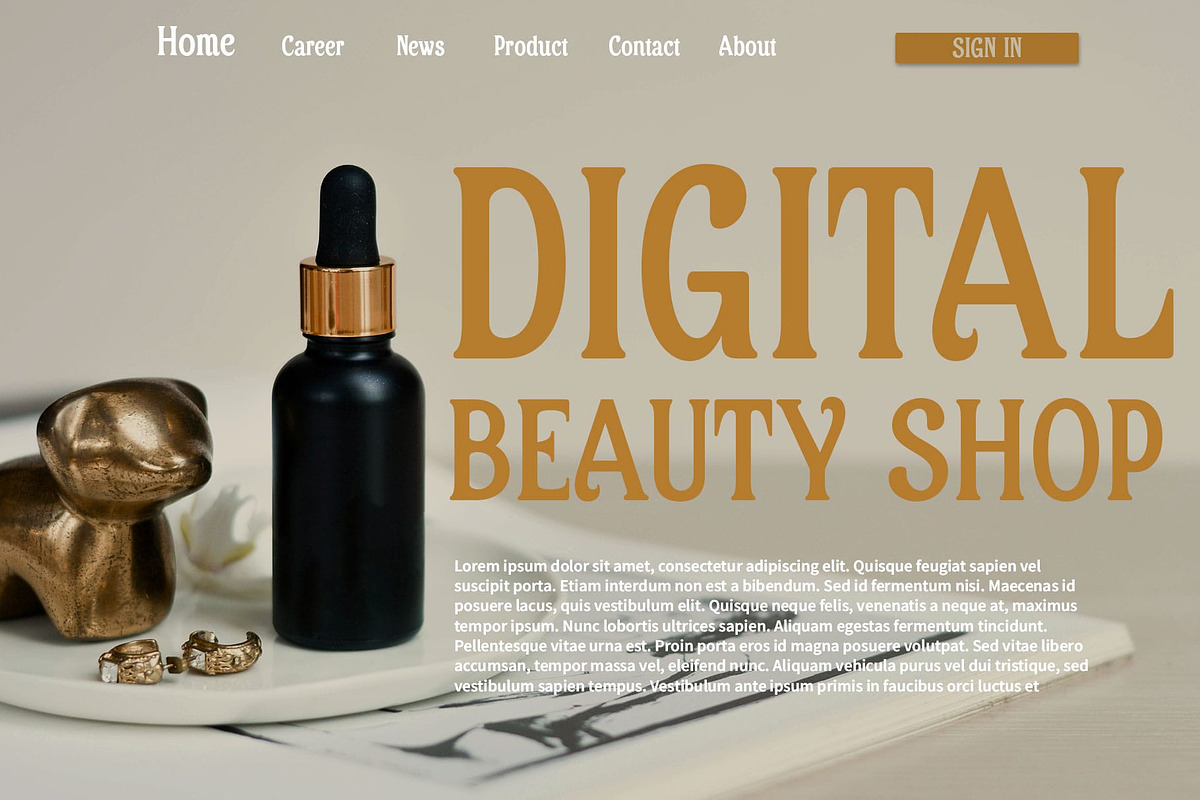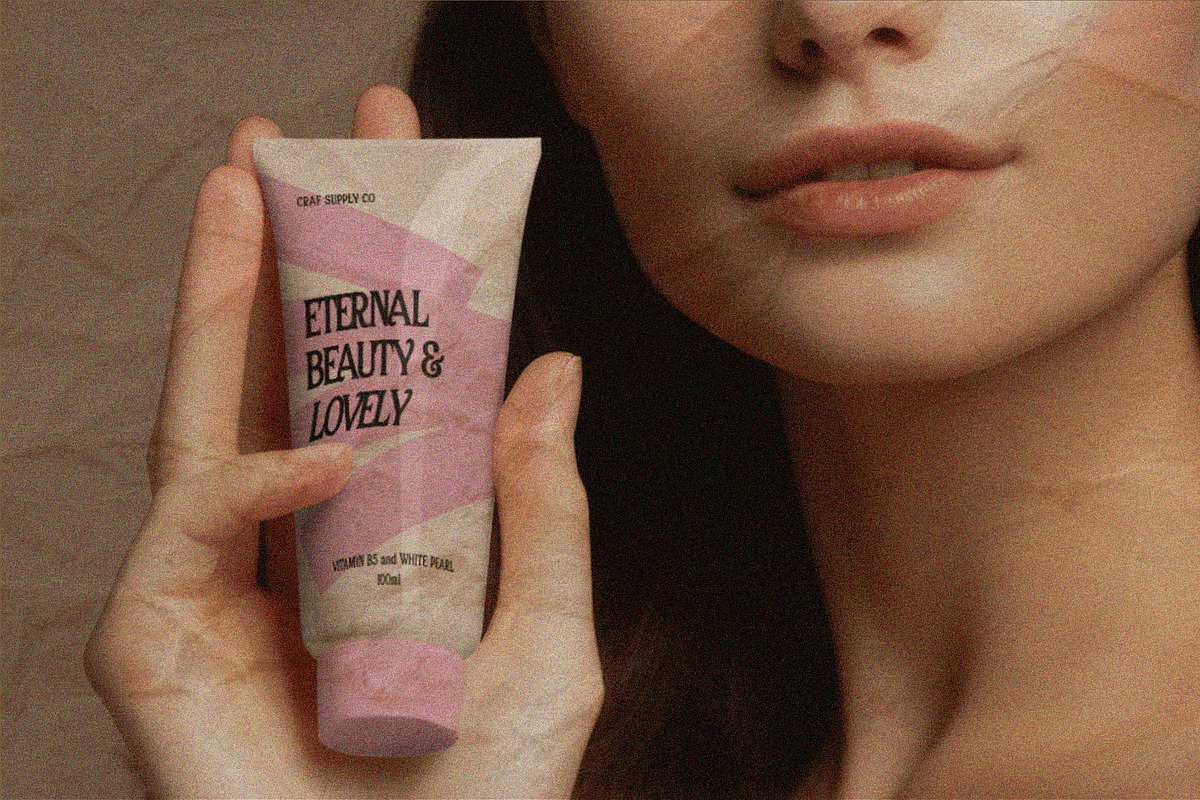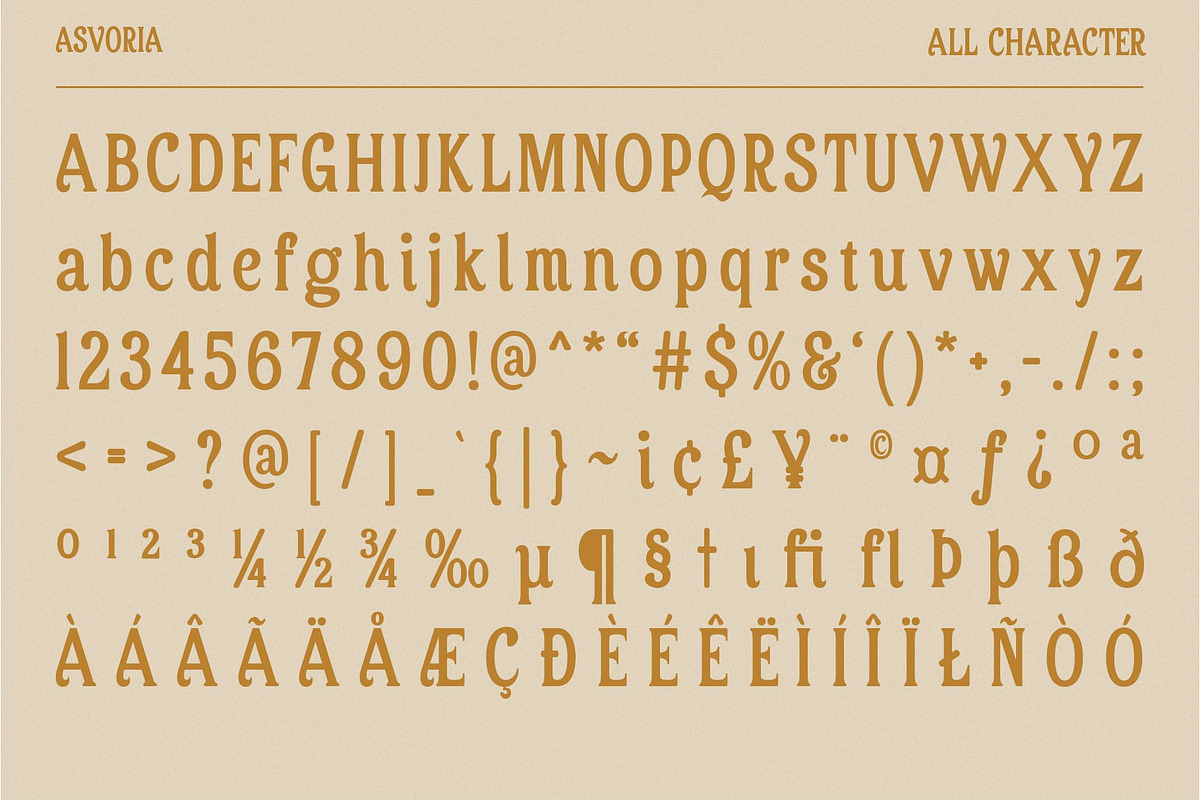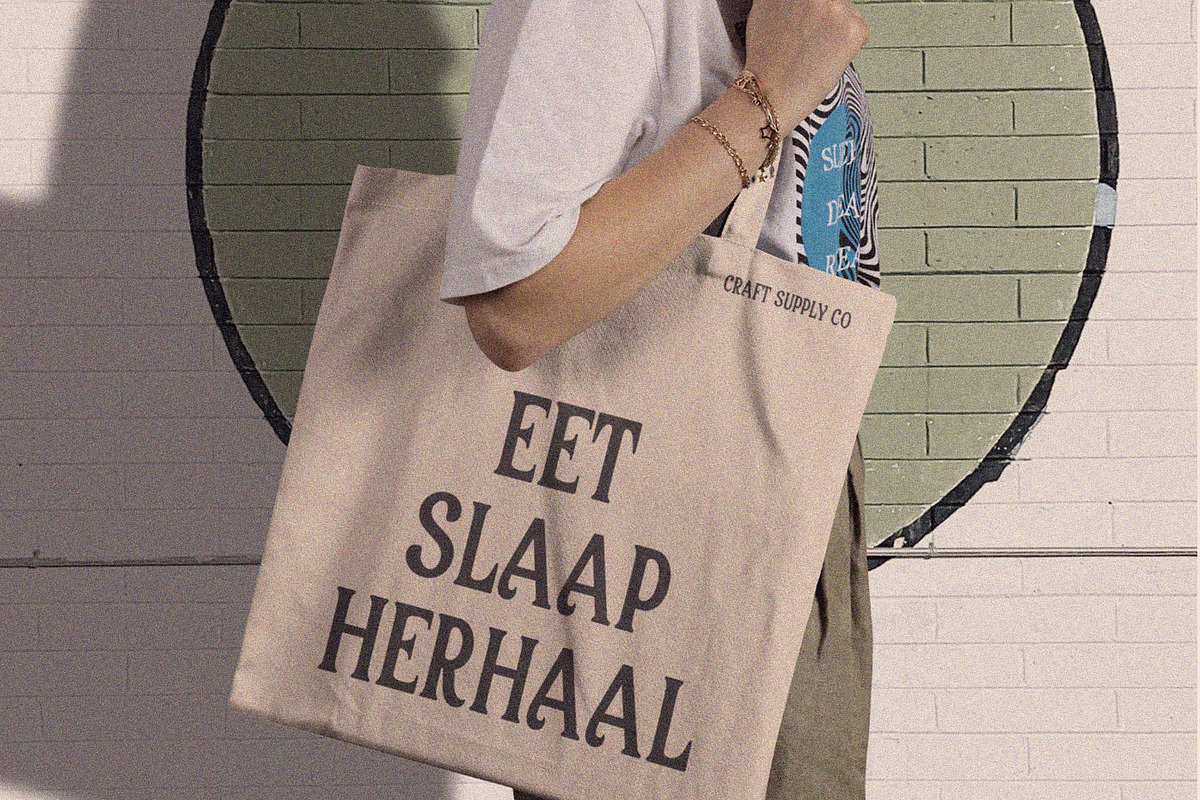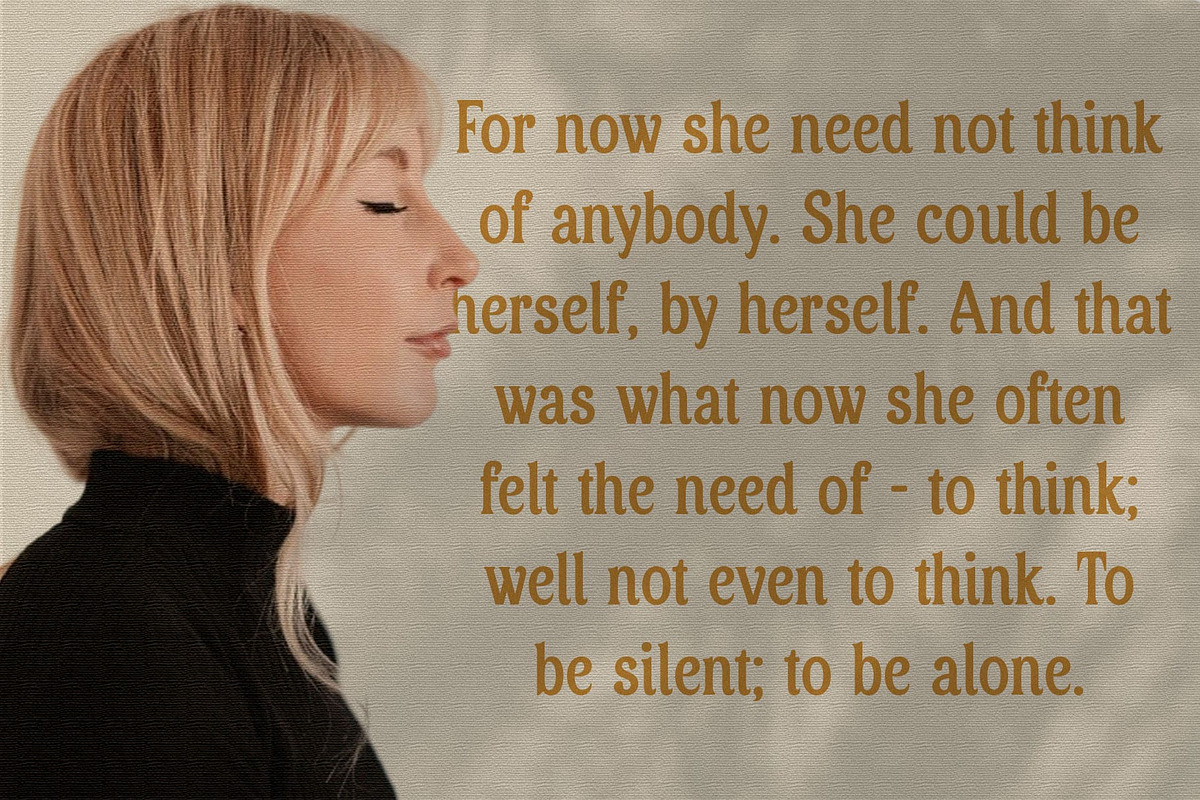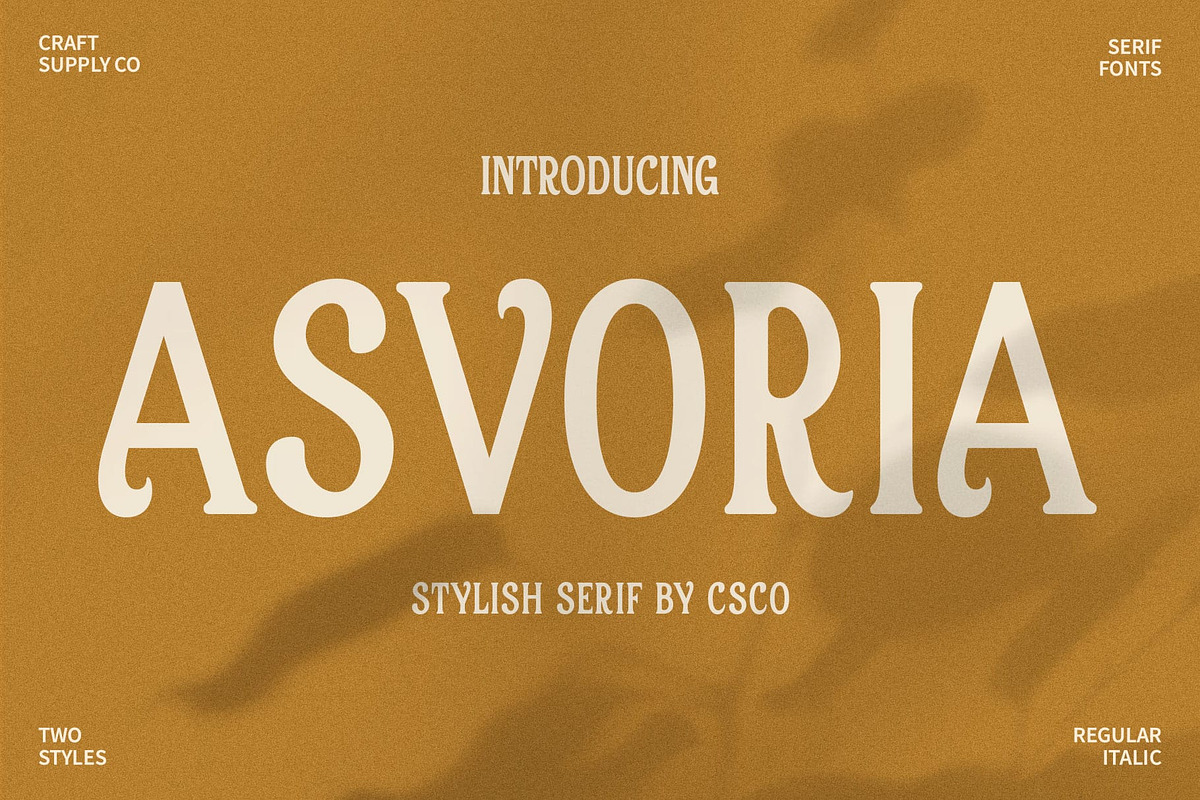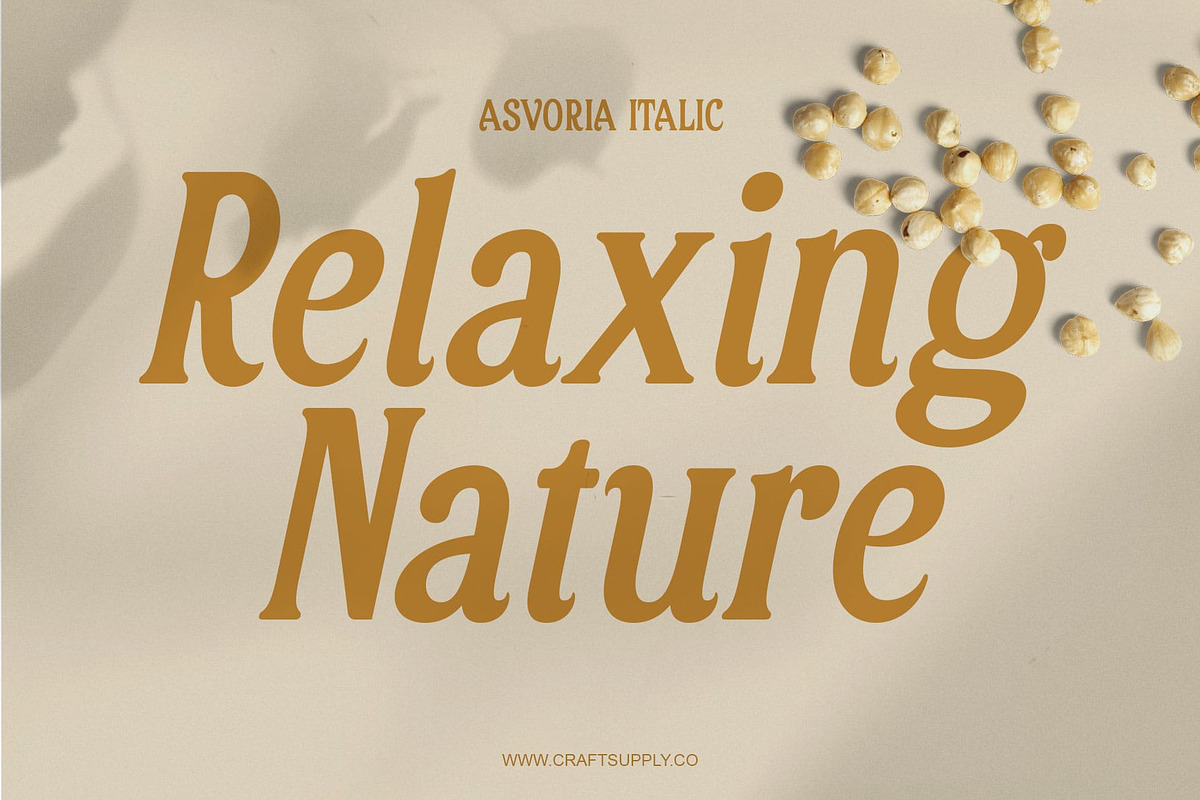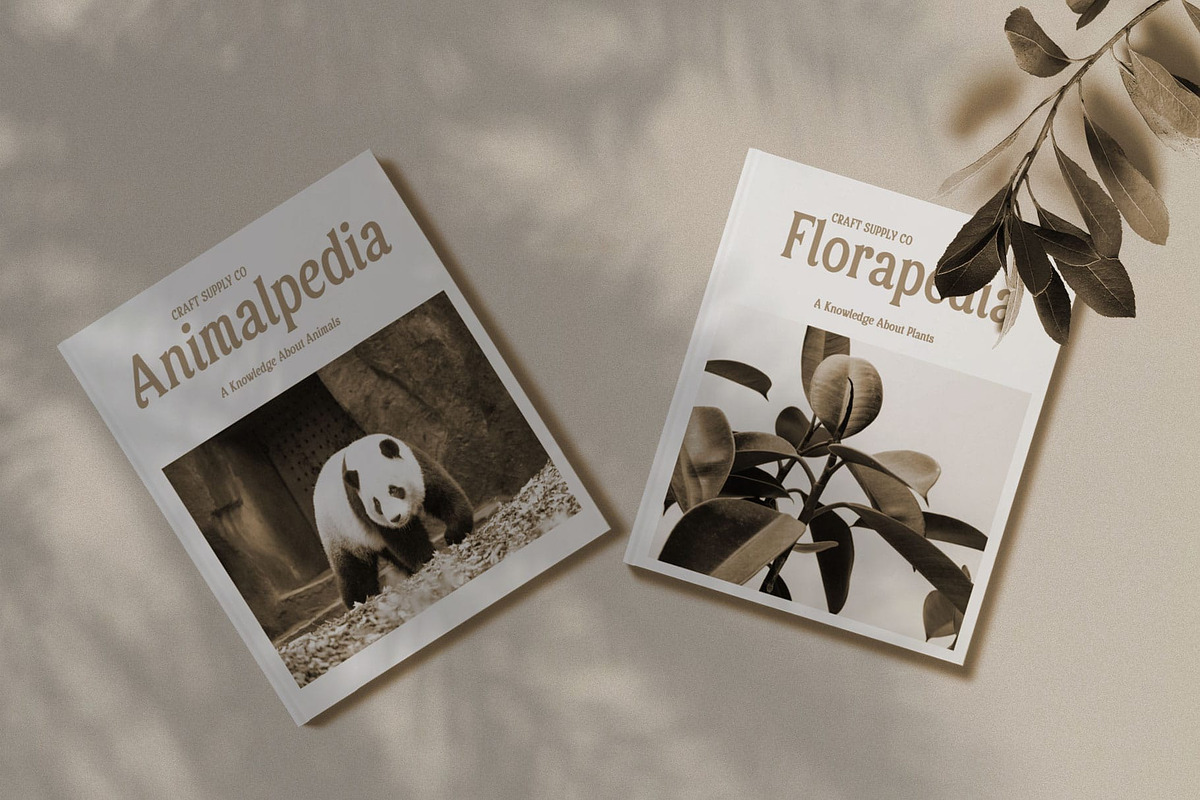
Asvoria – Stylish Serif
Asvoria Font: Elevating Style in Serif Typography
Stylish Flourishes Asvoria, a captivating serif font, introduces a new era of style with its meticulously crafted and stylishly embellished serifs.
Flowing Elegance The serifs in Asvoria exhibit a unique flow, adding a touch of elegance that seamlessly integrates into any design, be it print or digital.
Versatile Sophistication Asvoria’s stylish demeanor renders it versatile for a spectrum of applications, from editorial designs to brand identities, ensuring sophistication in every context.
Stellar Impact Beyond aesthetics, Asvoria doesn’t compromise on impact. Its stylish serifs are designed not just for visual appeal but to leave a lasting impression on your audience.
Conclusion In the realm of serif fonts, Asvoria stands as a testament to the union of style and substance. Elevate your designs with the flowing elegance of Asvoria, where each serif tells a story of sophistication and timeless charm.